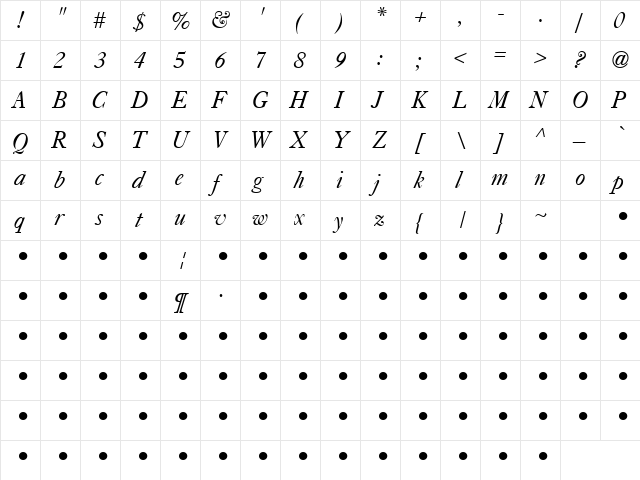
QTCaslan Italic
Design Context for QTCaslan Typeface
QTCaslan is a composed and adaptable typeface that performs quietly and consistently across a wide range of design contexts. The dynamic lean of this cut emphasises speed and emphasis in any layout.
Pro Tip: Try QTCaslan for annotation and caption copy alongside an upright companion — the contrast in angle creates a dynamic but ordered typographic system.